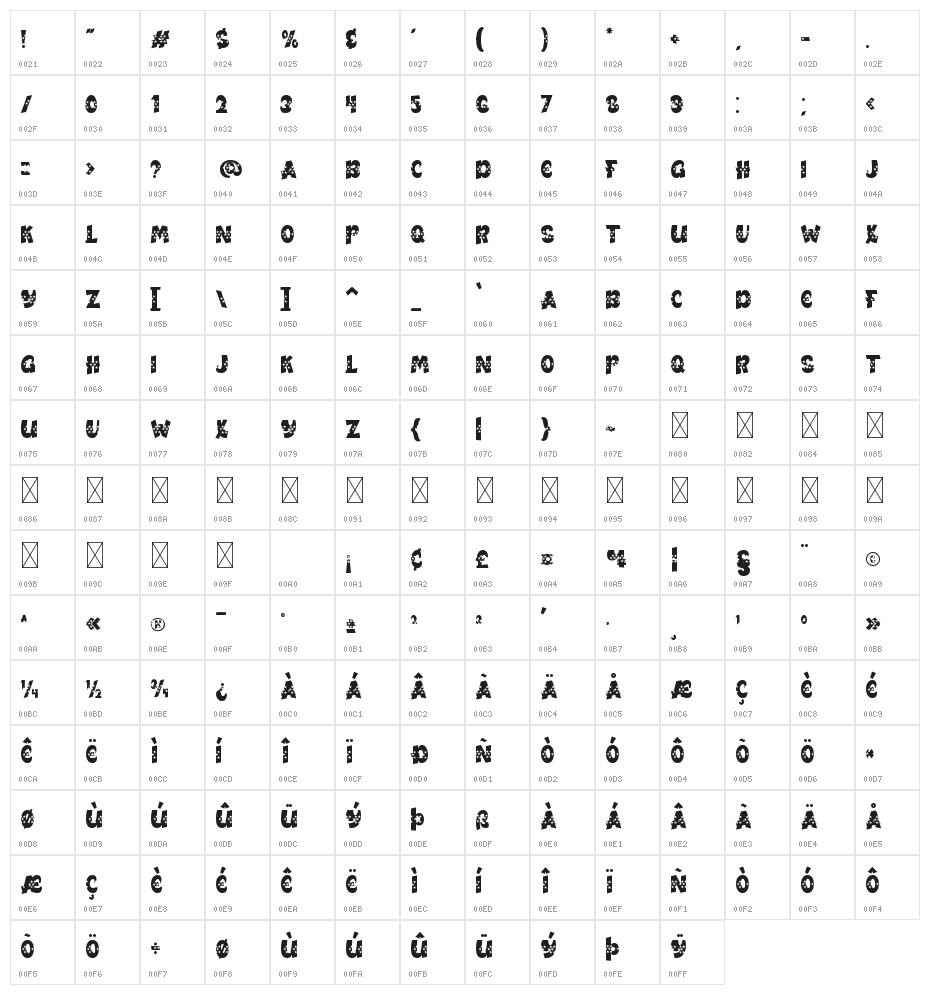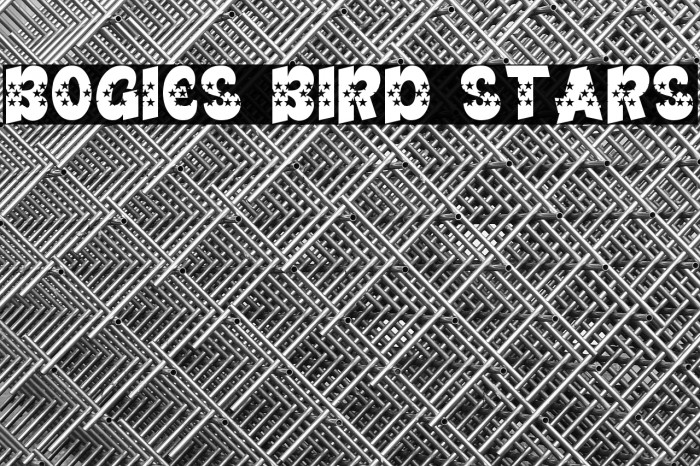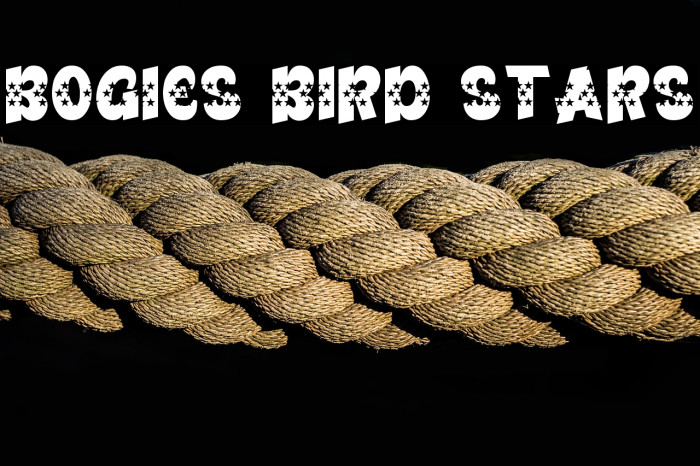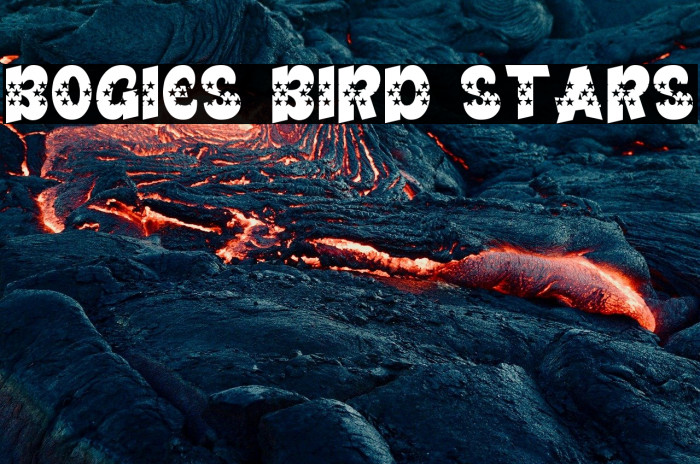
Bogies Bird Stars Font
Bogies Bird Stars Description
This playful and decorative font features bold, blocky letters filled with star patterns, creating a whimsical and eye-catching effect. The characters are uniformly bold, with a consistent thickness that enhances readability while maintaining a fun and lively appearance. The star-filled design adds a unique texture to each letter, making it ideal for projects that require a touch of creativity and flair. The font includes both uppercase and lowercase letters, numbers, and a variety of special characters, all maintaining the same starry theme. Its bold and decorative style makes it perfect for standout headlines and creative designs.
| Use Case | Headlines, Logos, Creative Designs |
| Proposed Projects | Perfect for children's book covers, party invitations, festive banners, and playful branding. |